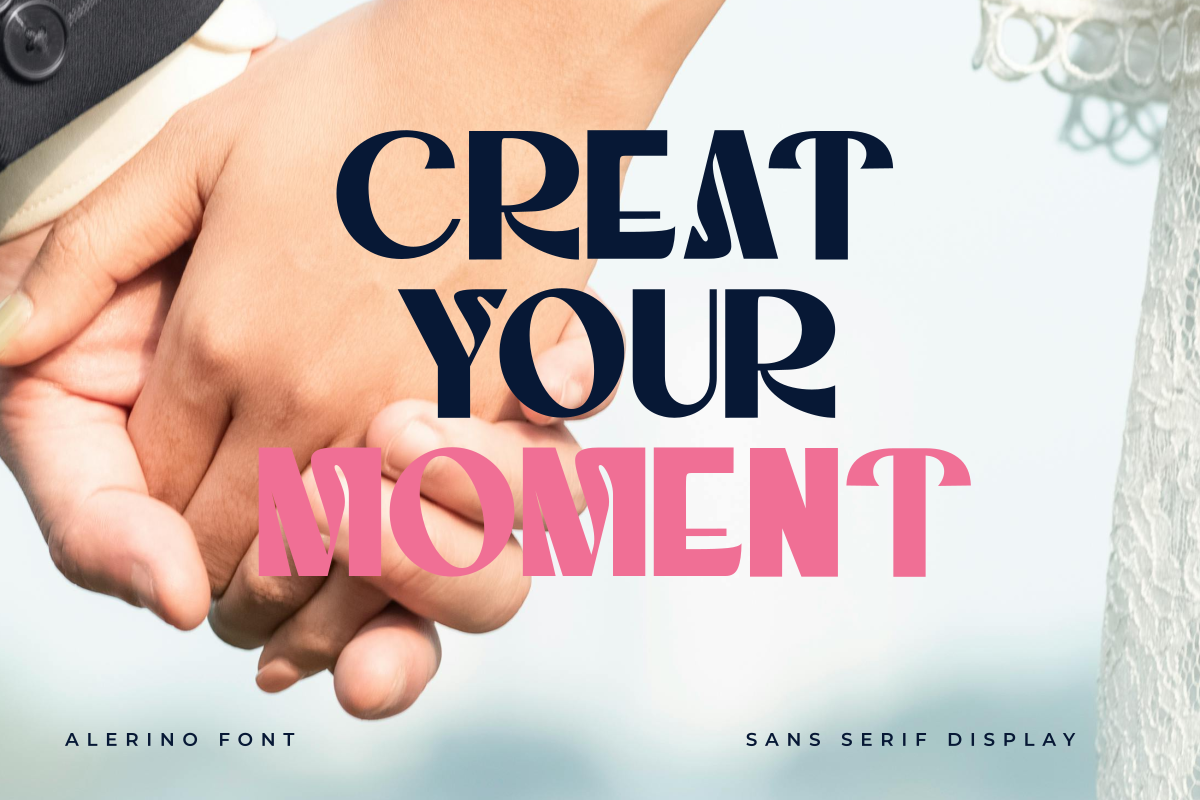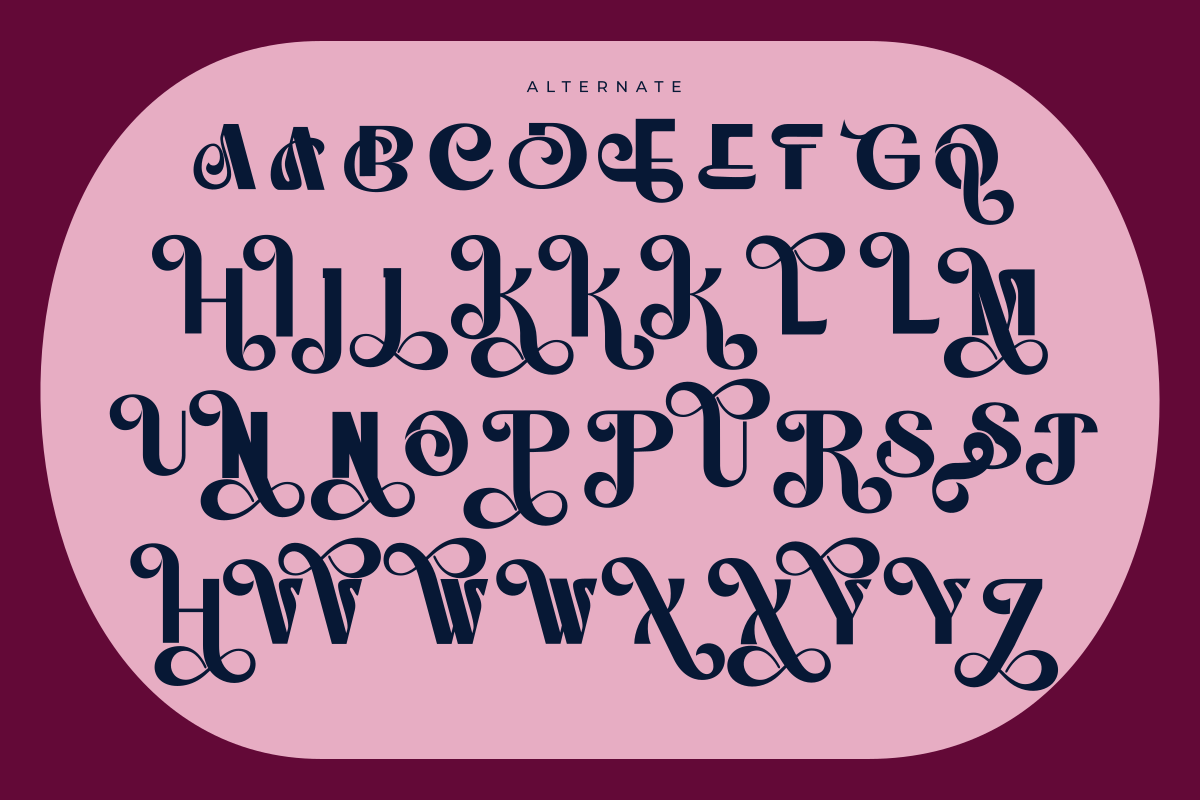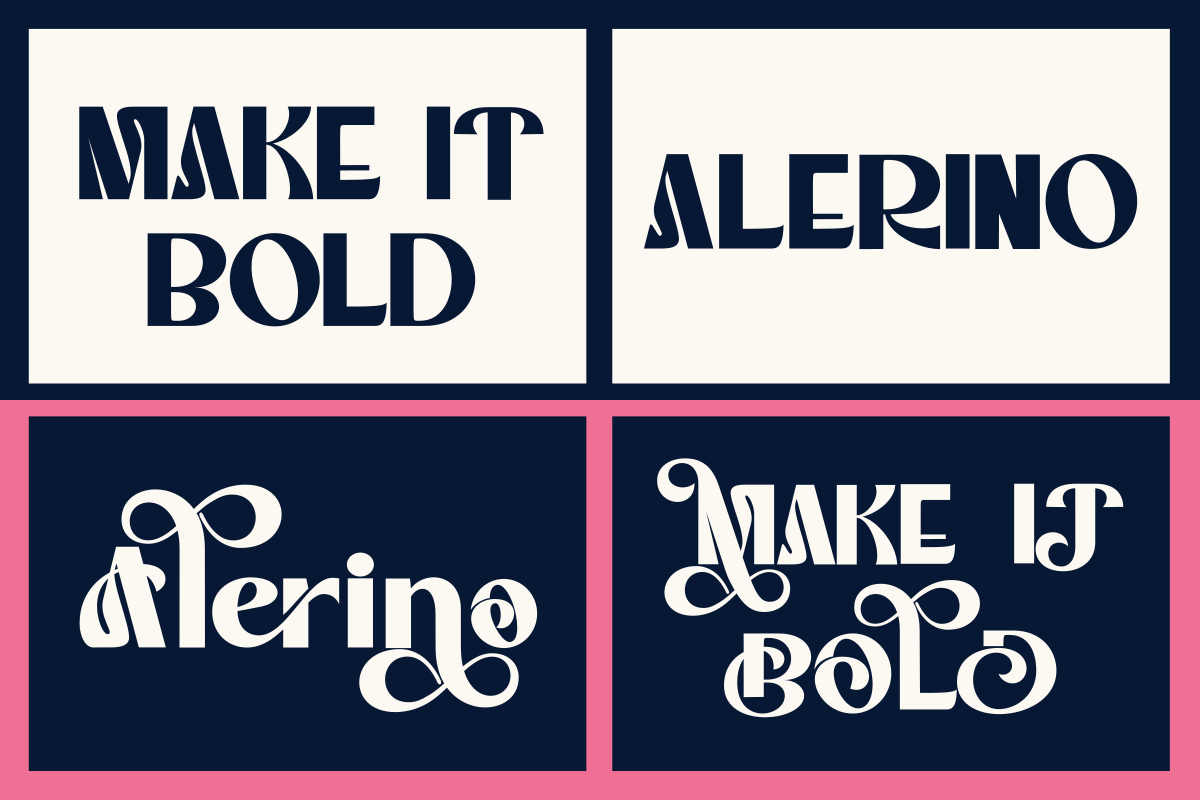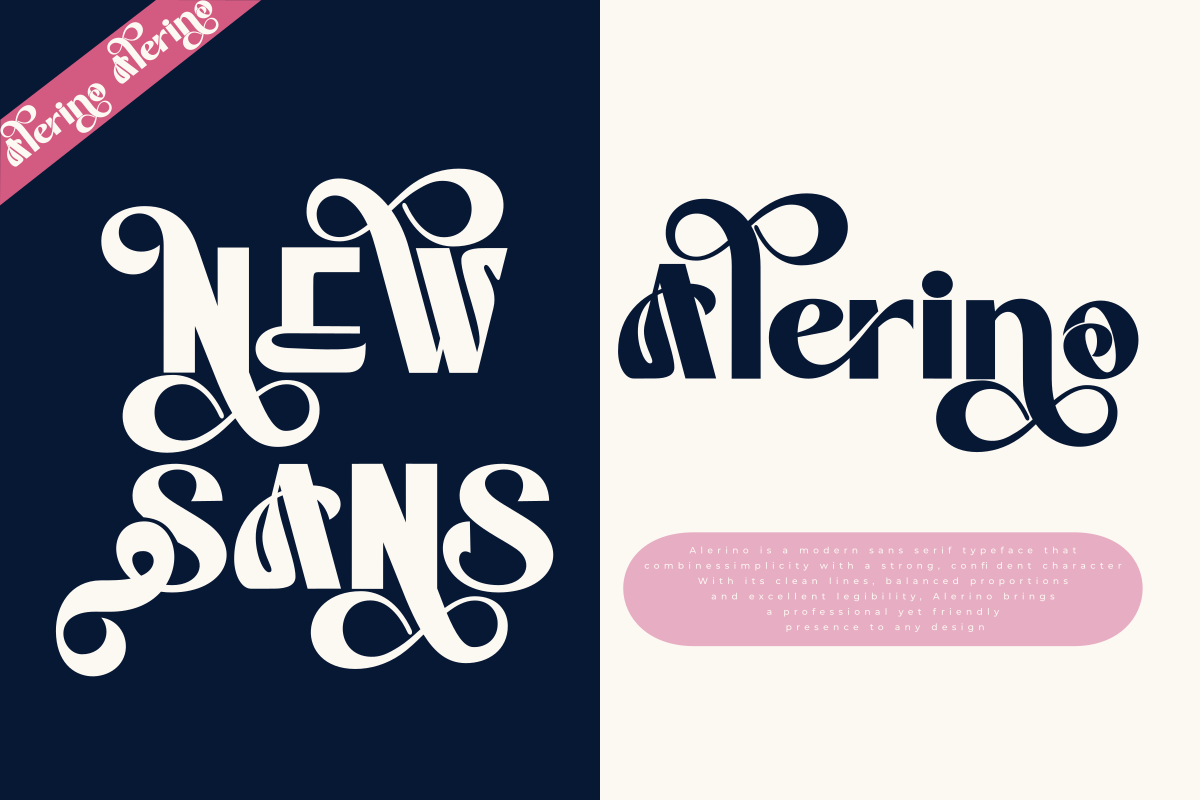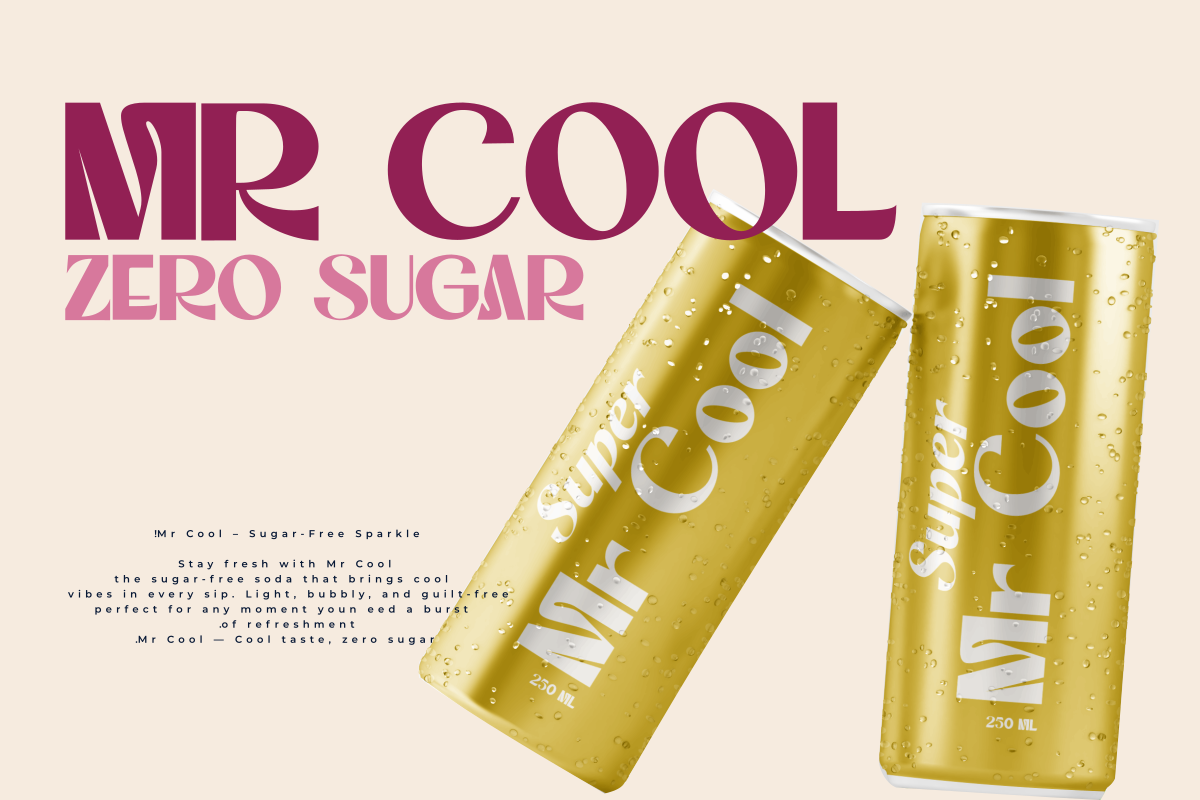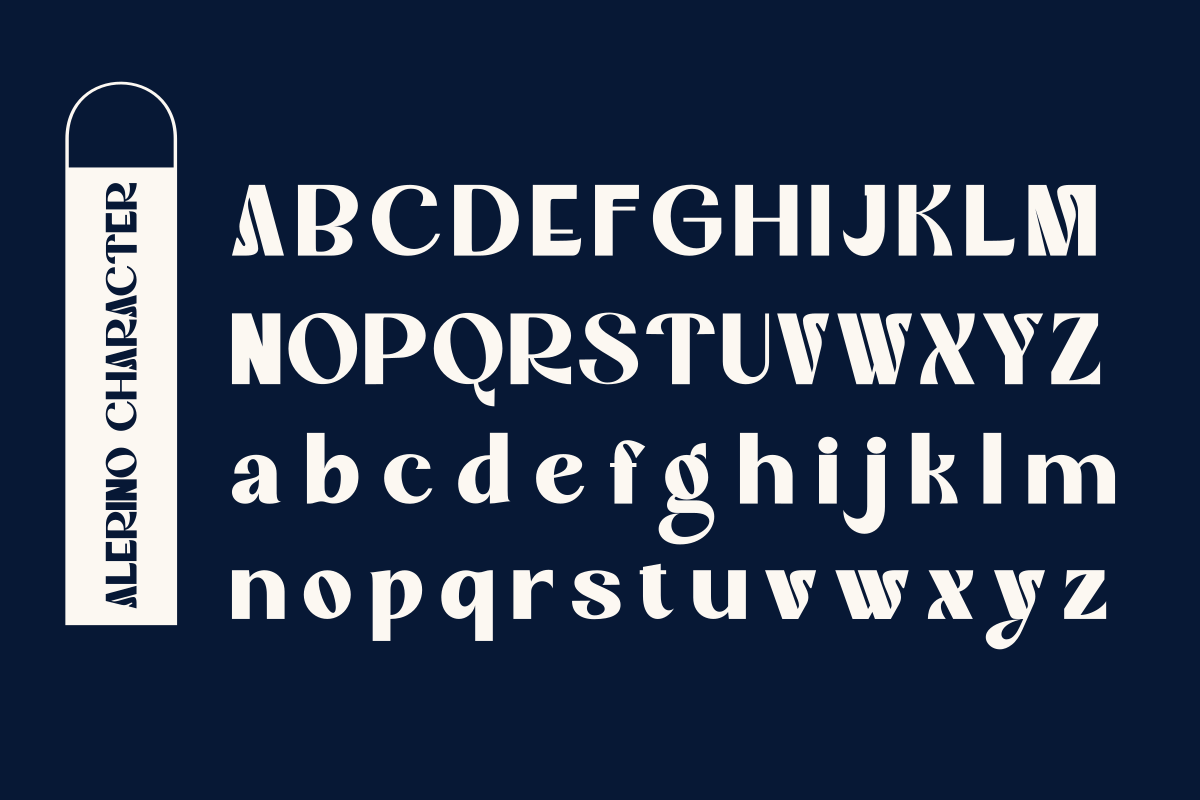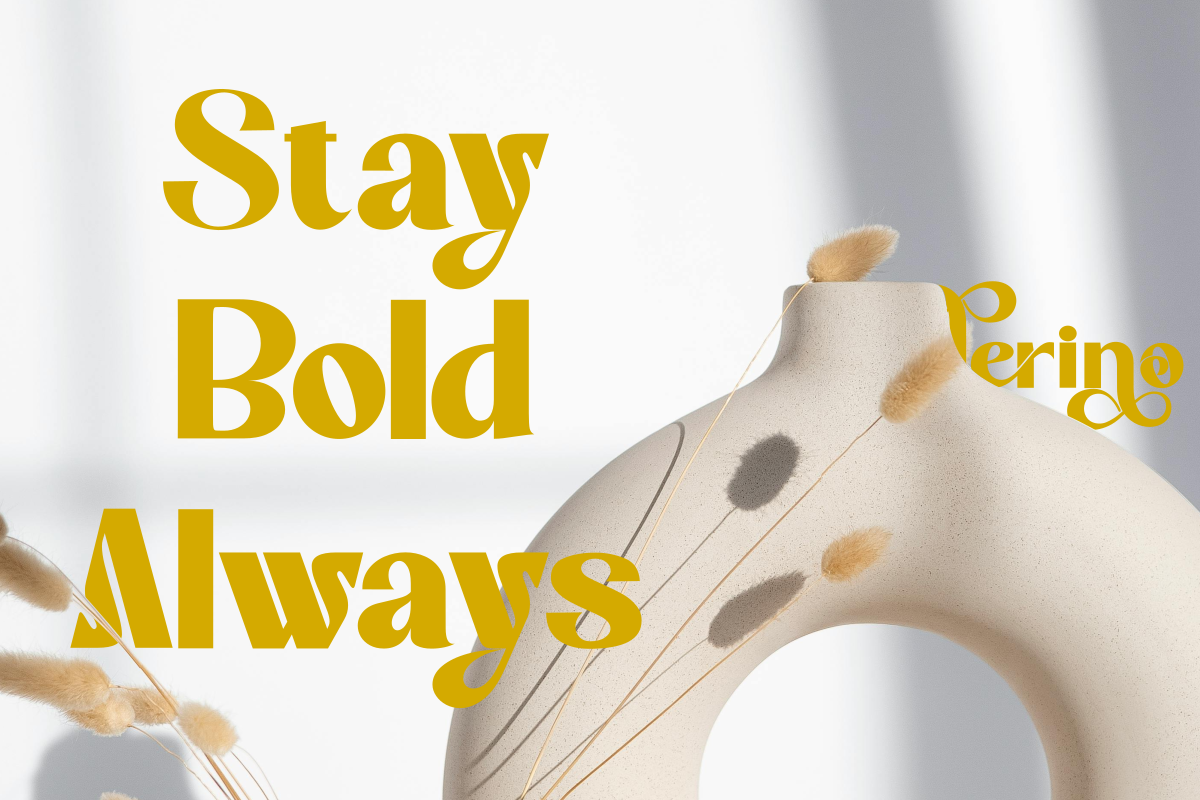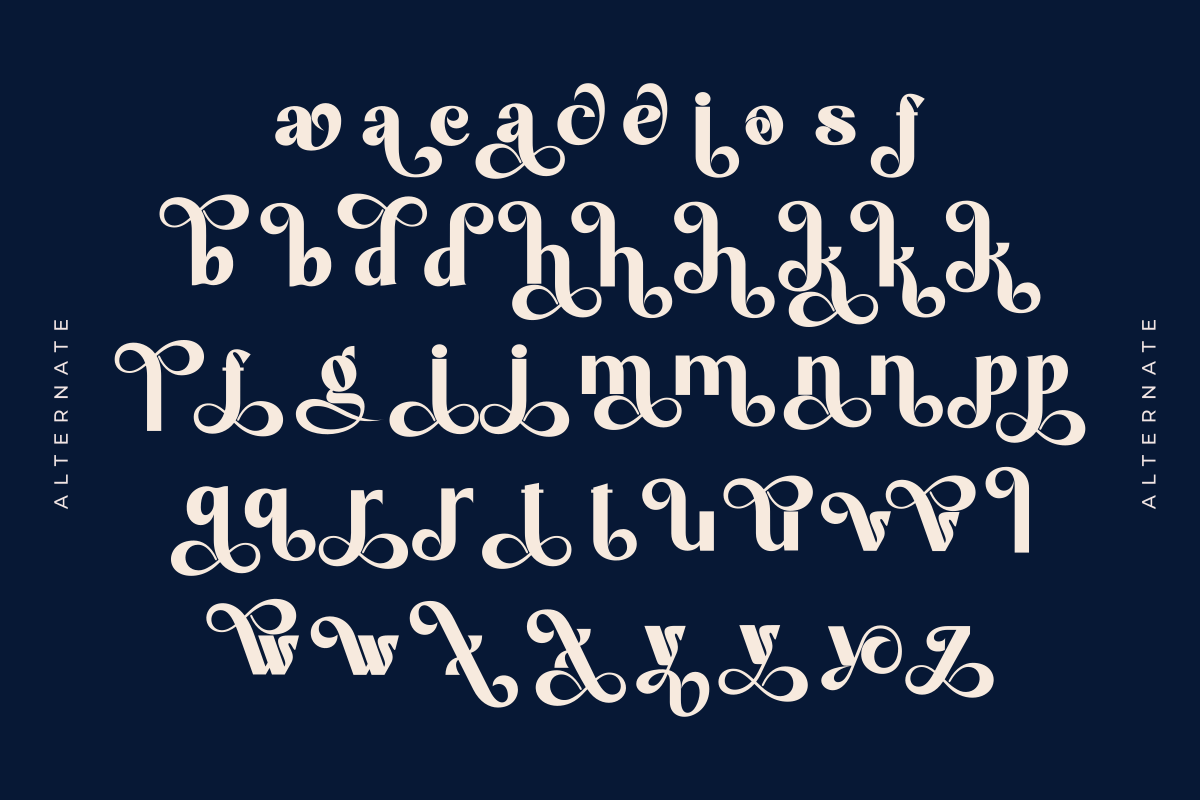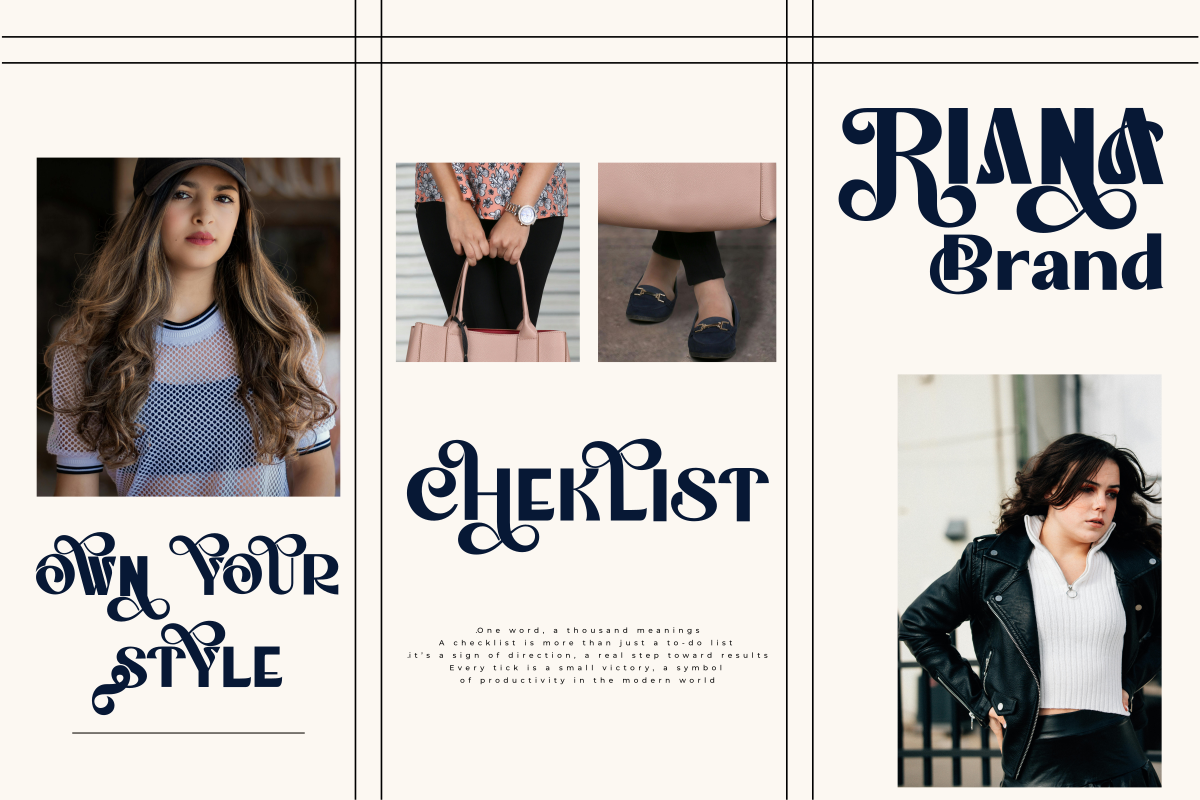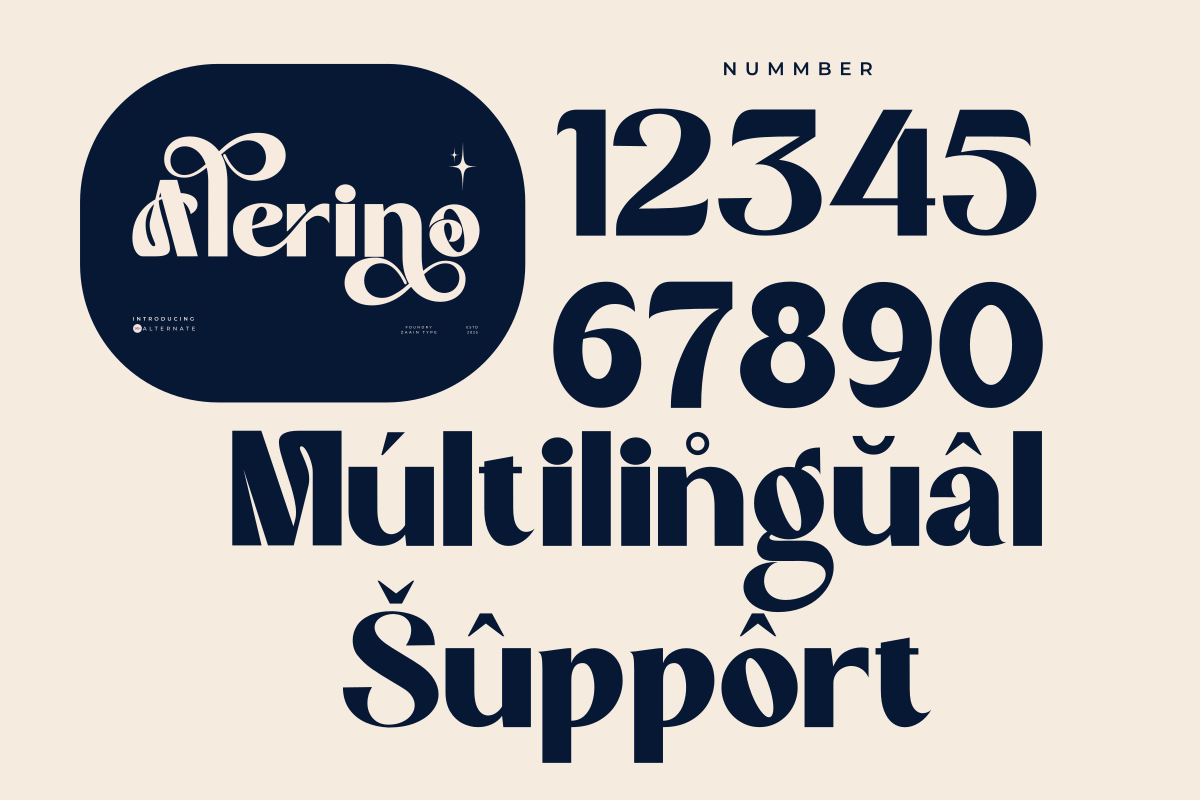
Alerino
Alerino is a clean and modern sans serif typeface designed for clarity and elegance. Its balanced letterforms and smooth geometry make it versatile for both display and text use. With a touch of minimalism, Alerino brings a professional and timeless feel to every design — from branding and advertising to editorial and digital interfaces.
Each curve and stroke is carefully crafted to ensure excellent legibility and visual harmony. Alerino shines in logos, posters, packaging, and modern web layouts, giving your project a refined yet approachable character